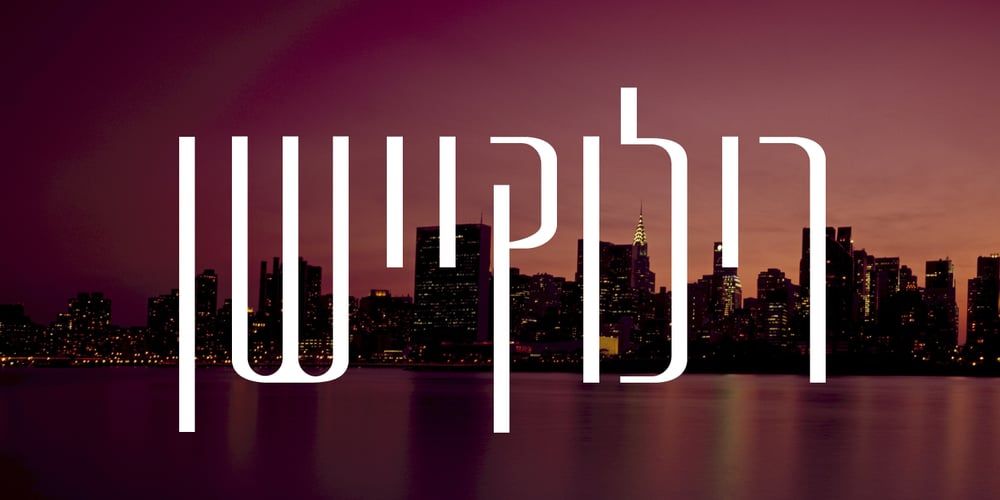
Glass MF
Glass MF font
Glass MF Font Family was designed by Orna Pinhasov and published by Masterfont. Glass MF contains 2 styles and family package options. Super condensed us the right pick for the next movie poster or your amazing tattoo